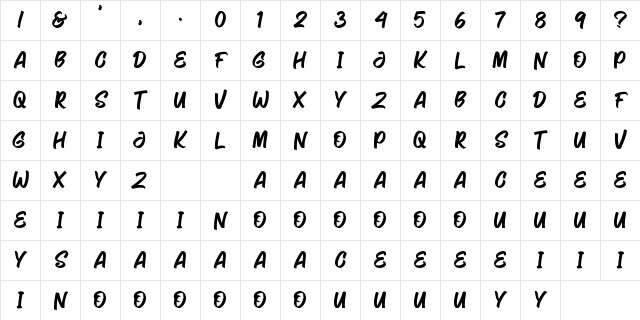
Saghinores Regular Free Font
Saghinores Regular
Foundry: Kotak Kuning Studio
Designer: Kotak Kuning Studio
Design Context for Saghinores
Saghinores is a composed and adaptable typeface that performs quietly and consistently across a wide range of design contexts.